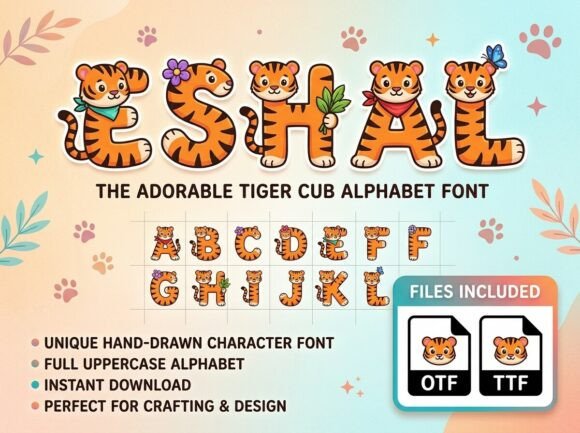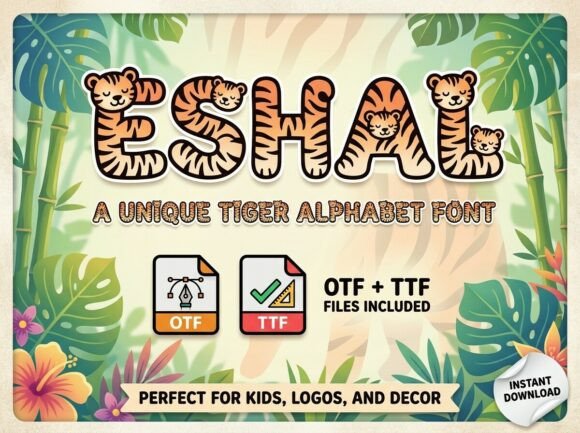
Introduction to Eshal Font
Do you remember the excitement of receiving a birthday invitation as a child? The colorful illustrations, the whimsical design, and the sense of anticipation that came with it? As a designer, you have the power to recreate that magic for children and families alike with the Eshal Font. This unique hand-drawn character font transforms the alphabet into a pride of playful tiger cubs, making it the ultimate choice for creative projects that require a touch of wild whimsy.
With the Eshal Font, every word tells a story that’s both fun and educational. Each uppercase letter is a masterfully illustrated tiger in various poses, adding an extra layer of depth and personality to your designs. Whether you’re working on a nursery wall art project, a zoo-themed branding campaign, or a simple birthday invitation, this font is a valuable design resource that’s sure to delight both children and adults.
Key Features of Eshal Font
- High-quality font with a unique, creative design perfect for various projects
- Supports various languages, making it an ideal resource for multilingual projects
- Designed to provide a professional look for creative projects, presentations, and marketing materials
Honest Review: Eshal Font
I recently stumbled upon the Eshal Font, a beautiful design resource that’s perfect for any creative project. One of the standout features of this font is its ability to work seamlessly with a transparent background, giving designers the flexibility they need to create stunning visuals.
- ✨ High-quality design: The Eshal Font is incredibly well-designed, with clean lines and a modern aesthetic that’s sure to elevate any project.
Of course, no font is perfect, and the Eshal Font has a few limitations. For example, the font may not be suitable for use in smaller text sizes, and the character set is not as extensive as some other fonts.
- ⚠️ Limited character set: While the Eshal Font has a great selection of characters, it’s not as comprehensive as some other fonts, which may be a limitation for designers who need to use a wide range of characters.
- ⚠️ Smaller text sizes: As mentioned earlier, the Eshal Font may not be the best choice for use in smaller text sizes, which could be a limitation for designers who need to create text-heavy projects.
Overall, I’m really impressed with the Eshal Font. While it may have a few limitations, its high-quality design and free download make it an excellent resource for designers of all levels.
Eshal Font is a high-quality design resource perfect for creative projects. It offers a unique and stylish look that can elevate your designs to the next level. With its transparent background, it’s easy to integrate into your projects.
Eshal Font is ideal for creative projects, such as logos, brochures, and social media graphics. It’s also great for use in presentations, reports, and other documents where a stylish font is needed.